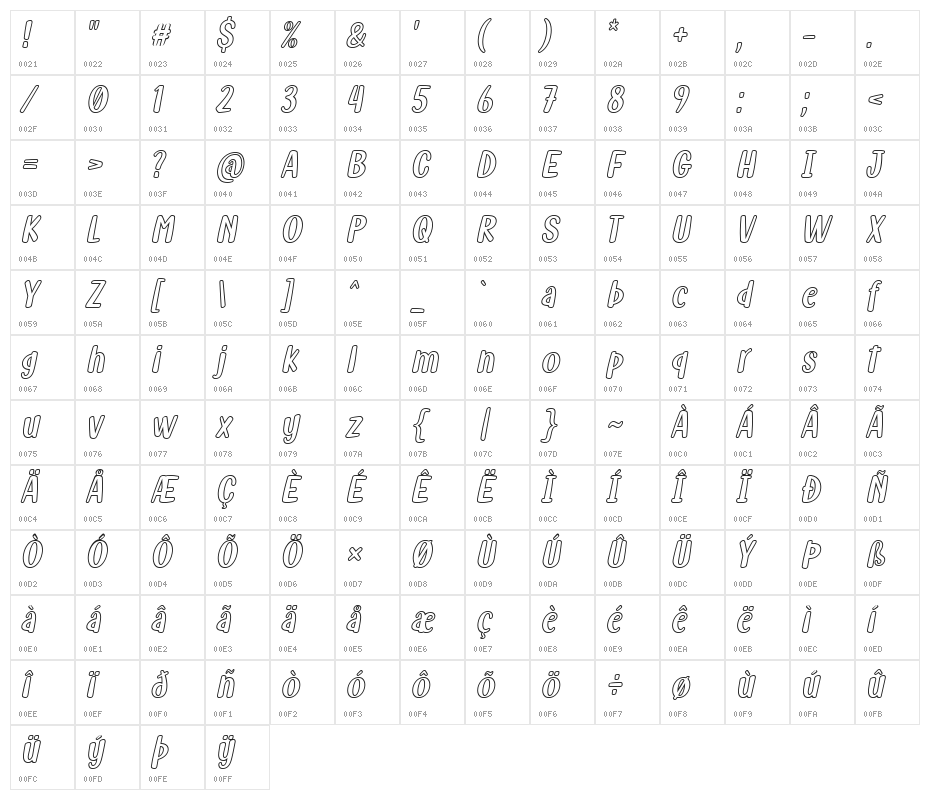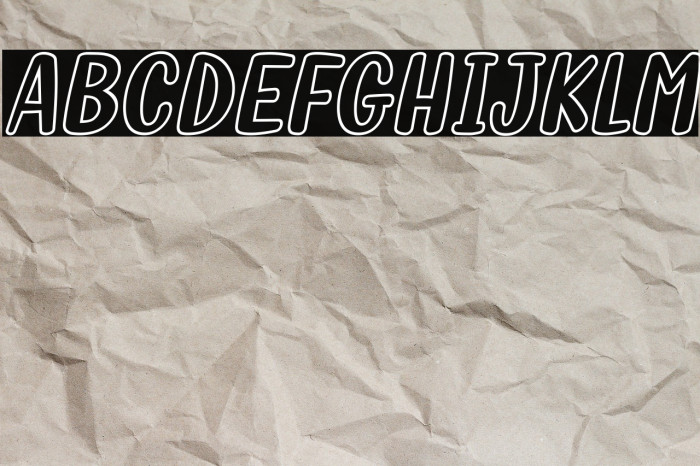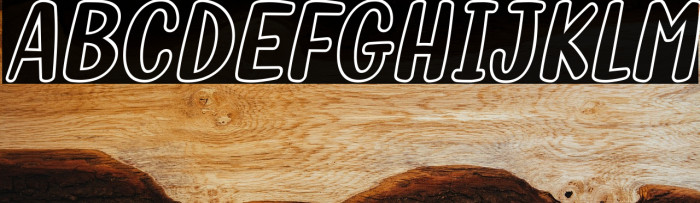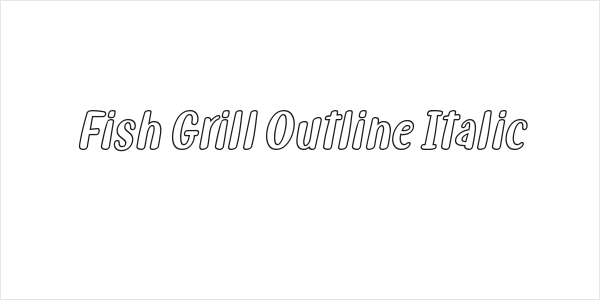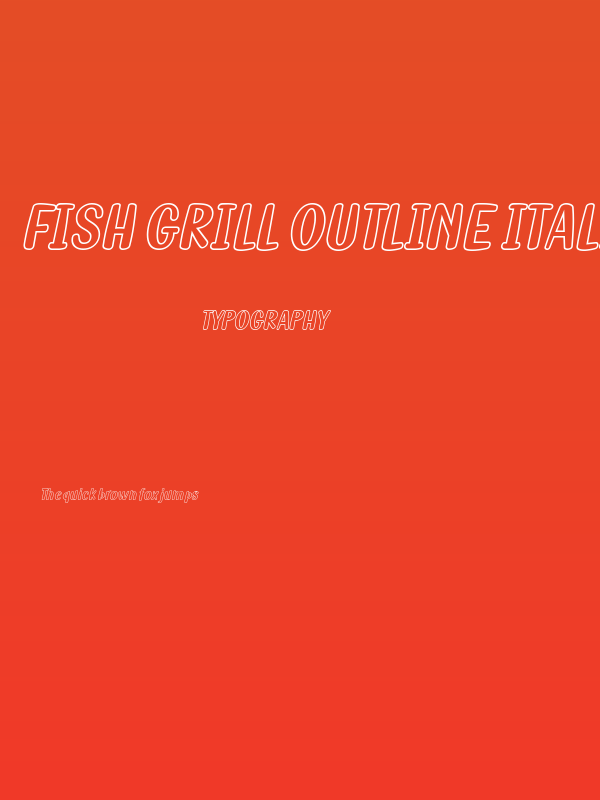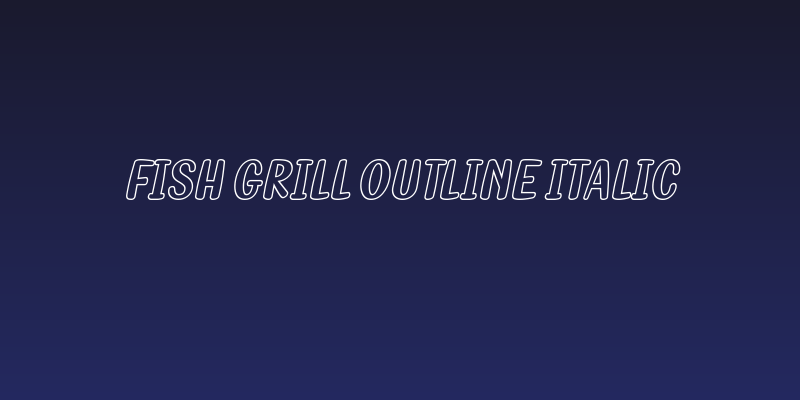
Fish Grill Outline Italic Font
Fish Grill Outline Italic Description
This font features a playful and dynamic outline style with a distinct italic slant, giving it a sense of movement and energy. The characters are bold and rounded, with a consistent stroke width that maintains clarity and readability. The uppercase and lowercase letters are well-proportioned, and the numerals are clear and easily distinguishable. Special characters are included, enhancing its versatility. The font's outline design adds a unique touch, making it suitable for creative and eye-catching designs.